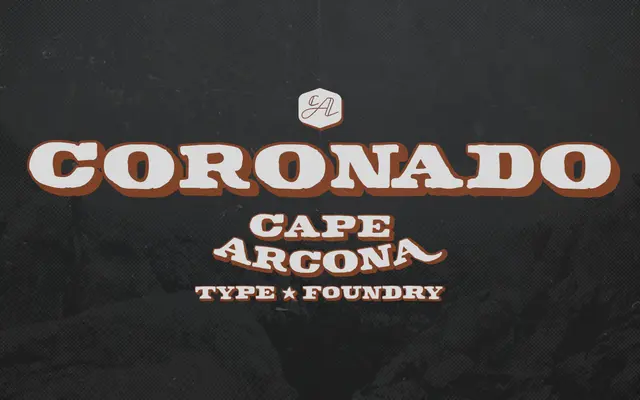
CA Coronado
Cape Arcona · Stefan Claudius
A two-style distressed display face by Stefan Claudius with a worn, western character suited to headlines and logotypes.
Built around a rough, hand-worn aesthetic, CA Coronado comes in Regular and Shadow styles intended to work in combination, with the Shadow providing depth and the Regular serving as a fill layer. Upper and lower case letters share a visual kinship but differ in detail, with the uppercase running slightly more expressive and the lowercase more restrained, giving designers a set of stylistic alternates within a single weight. Coverage spans Western, Central European and Latin Extended encodings, with OpenType stylistic alternates included.
Classified by the foundry as Display Distressed; the rough, worn letterforms and dual-case alternates place it firmly in the display category with a distressed western aesthetic.